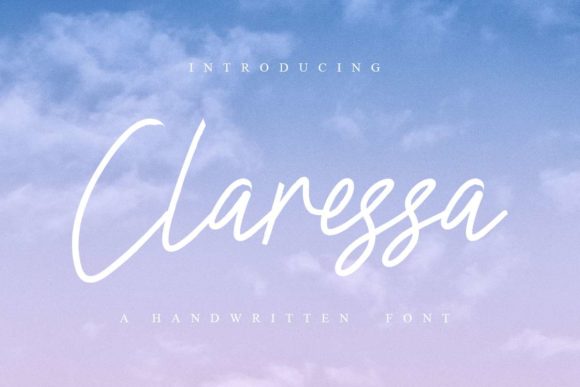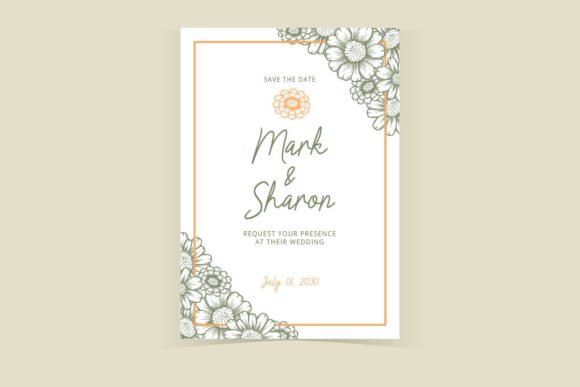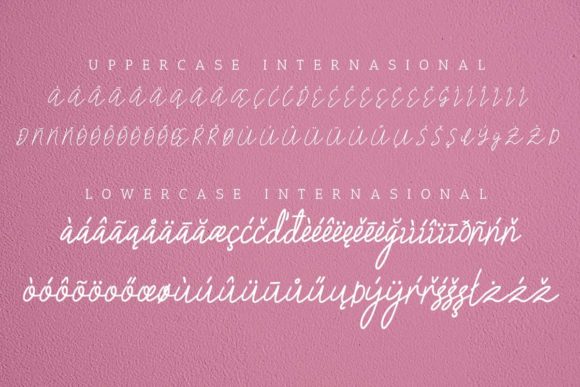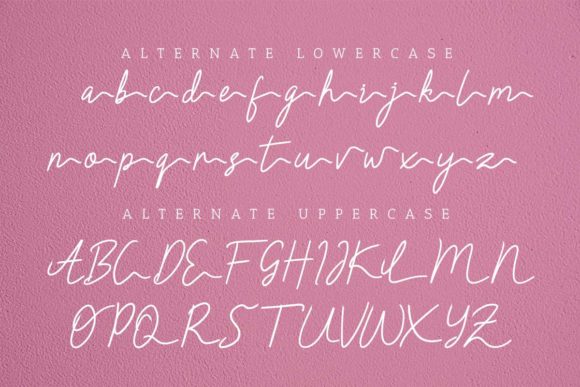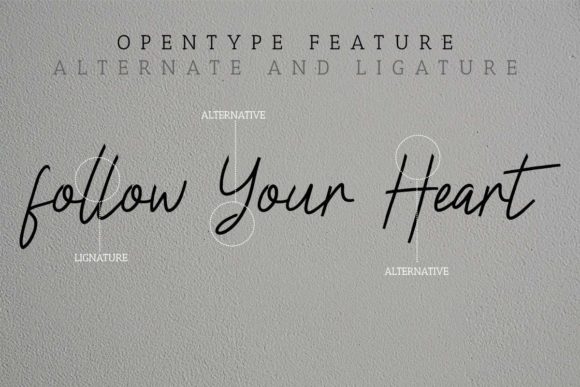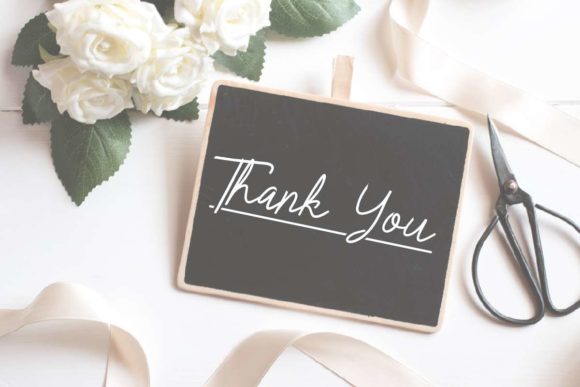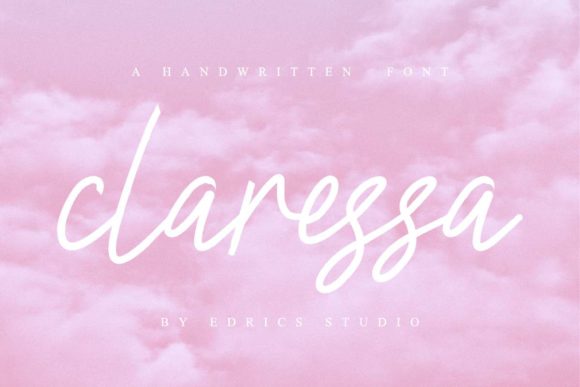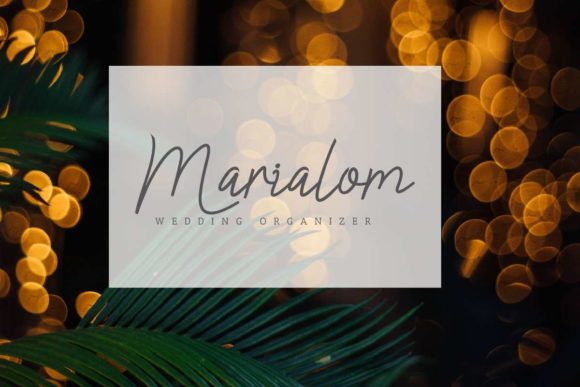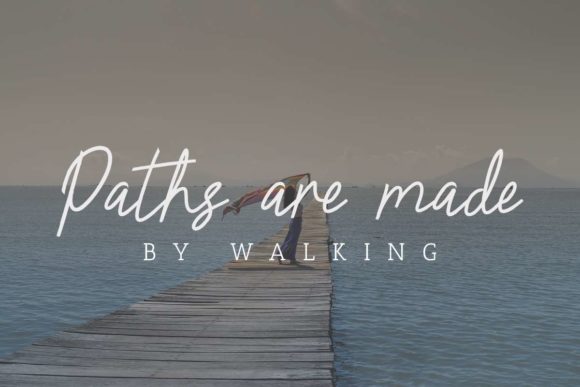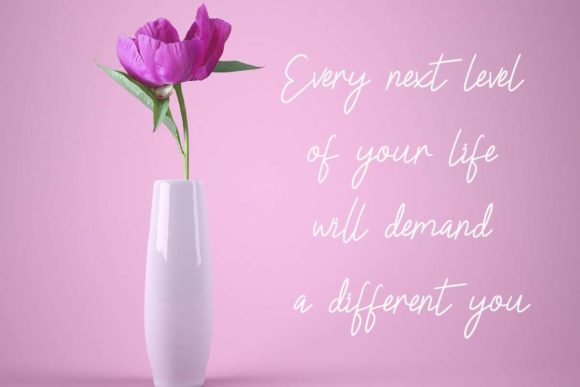
Claressa Font
About Claressa Font
Claressa is a simple, yet stunning script font full of authenticity. Ignite your creativity with its timeless charm!